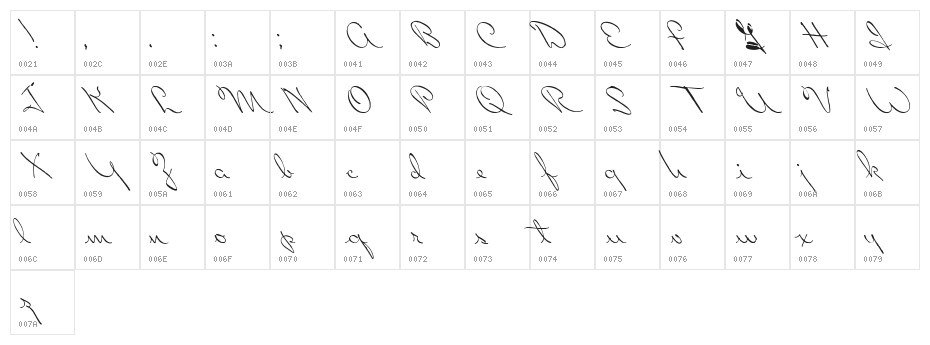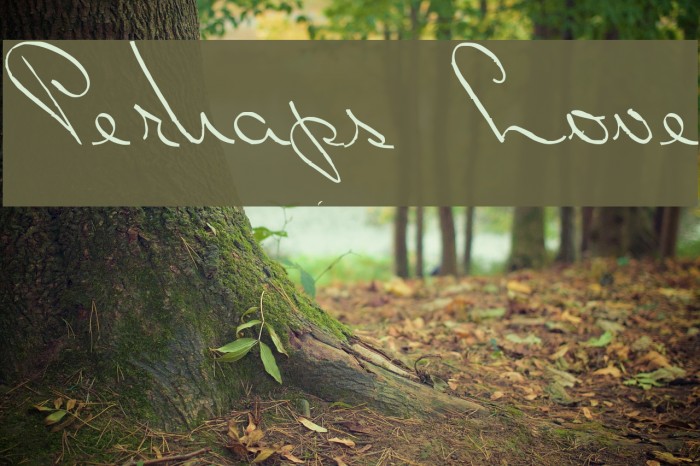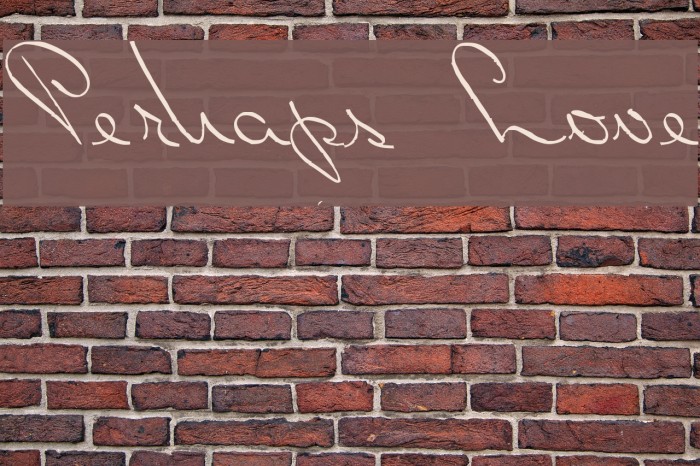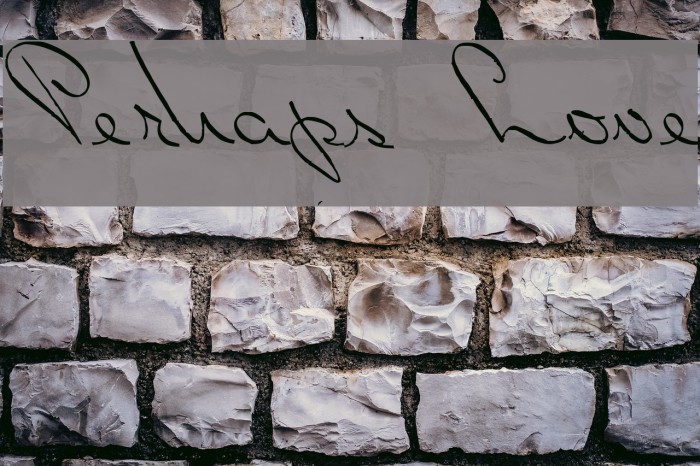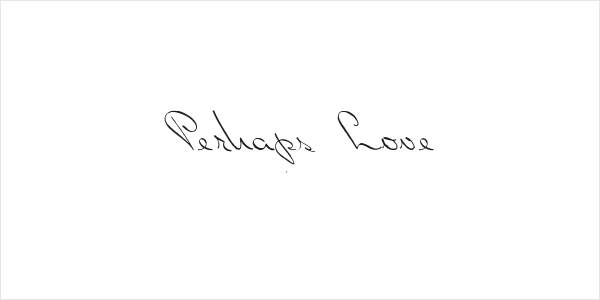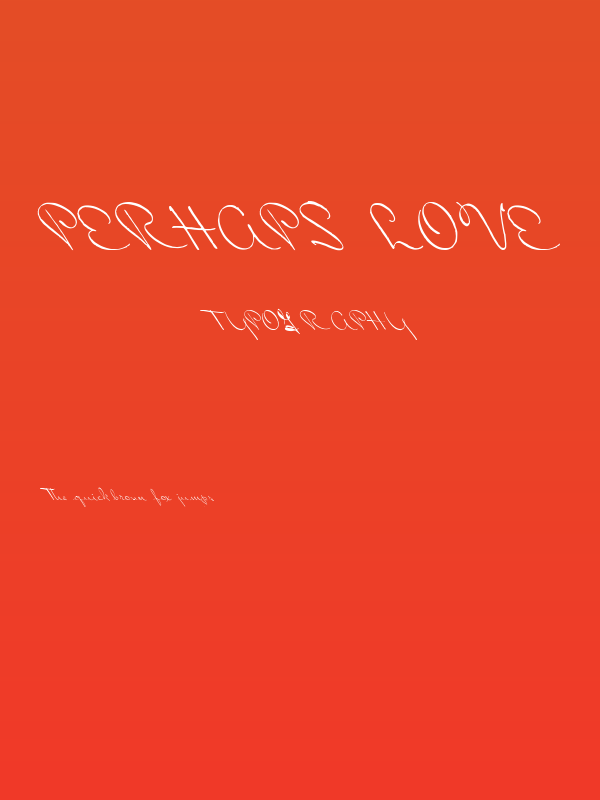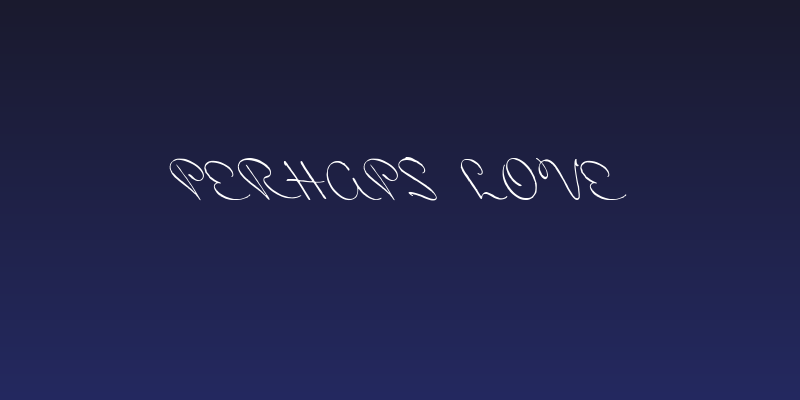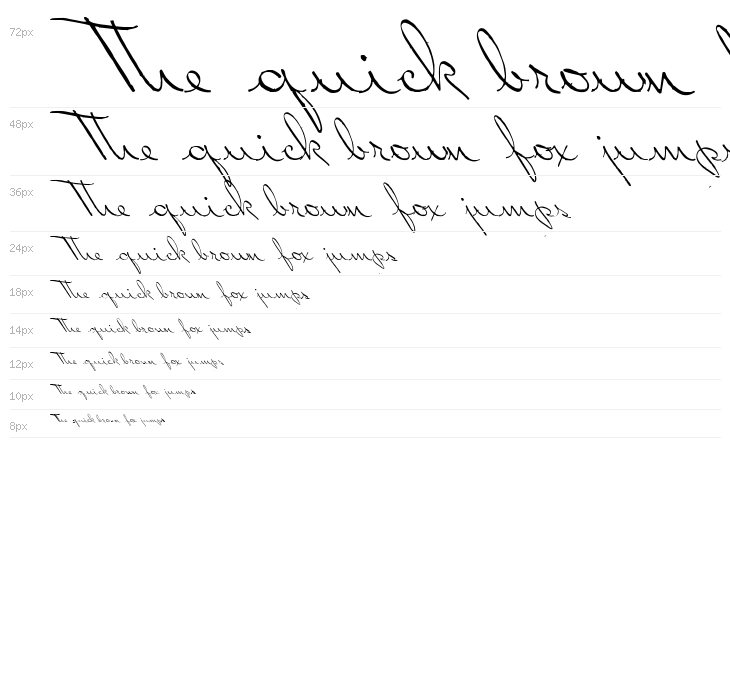
Perhaps Love Font
Perhaps Love Description
This font features a flowing, cursive style with elegant, sweeping lines and a handwritten appearance. The uppercase letters are characterized by their graceful curves and loops, giving a sense of movement and fluidity. The lowercase letters maintain this fluidity, with some letters connecting seamlessly to the next, enhancing the script-like quality. The numbers and special characters are designed to match the overall aesthetic, ensuring consistency throughout. This font exudes a sense of elegance and sophistication, making it suitable for formal and decorative applications.